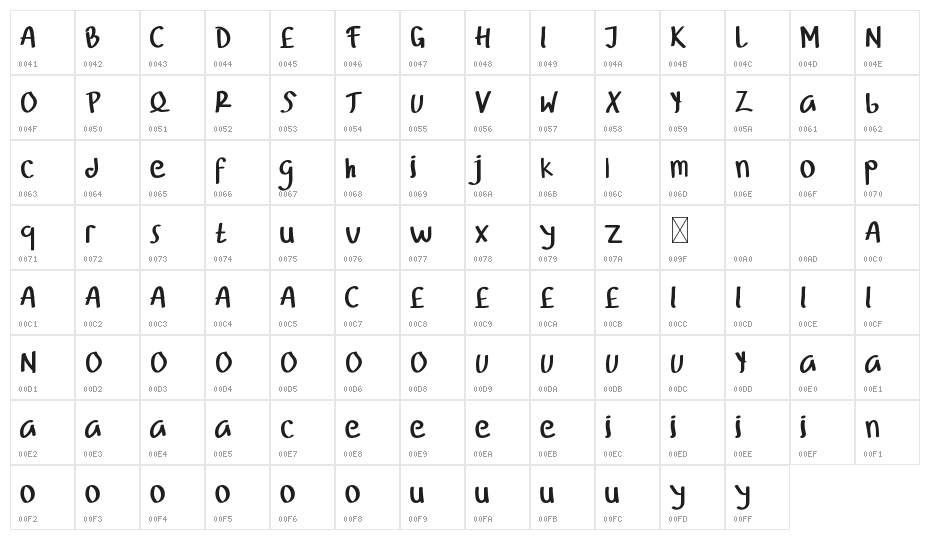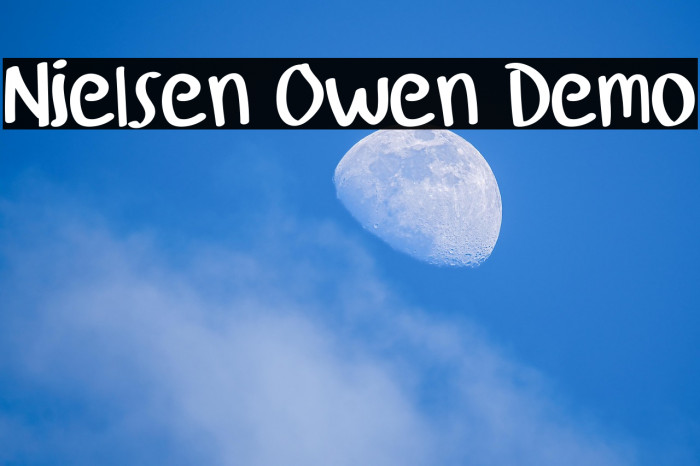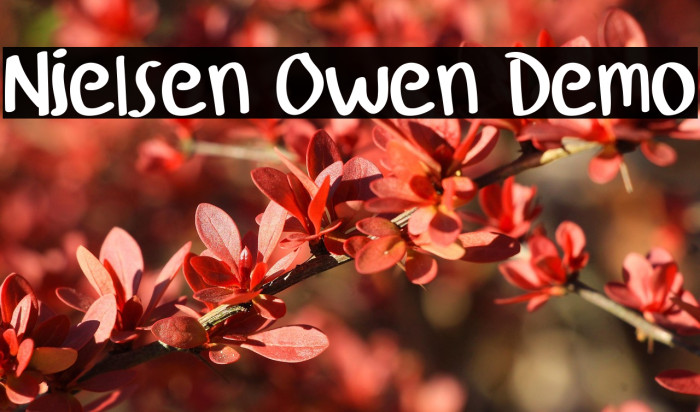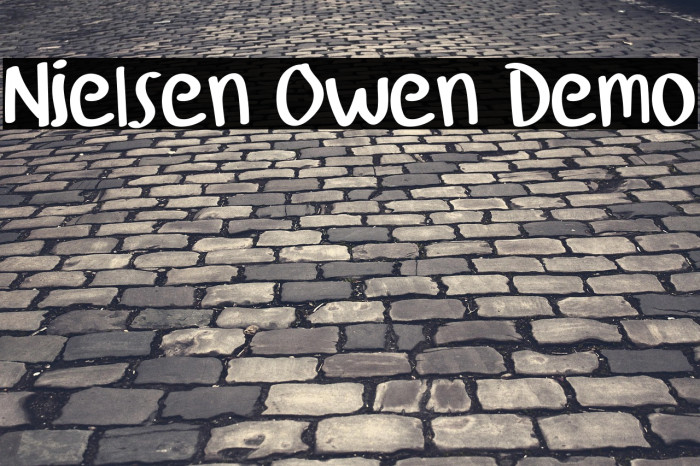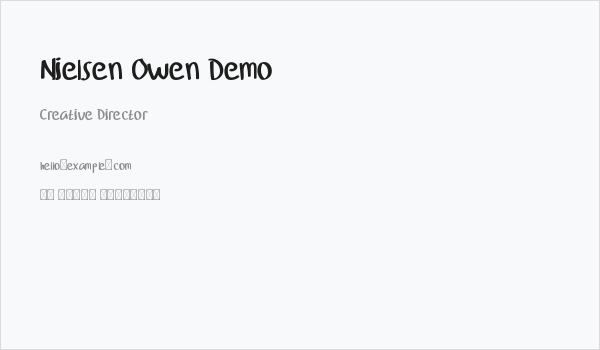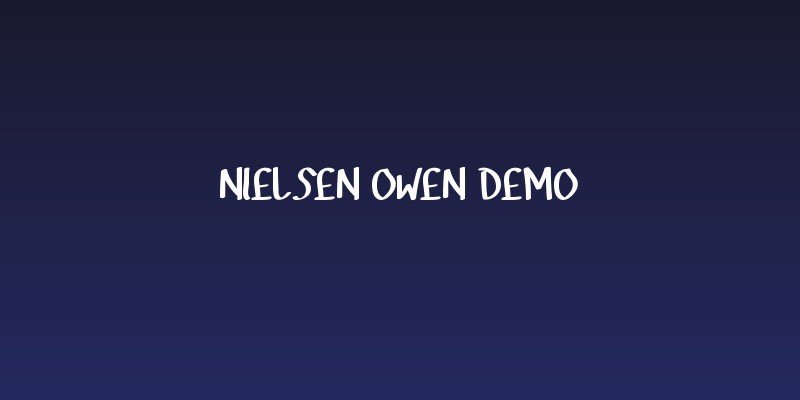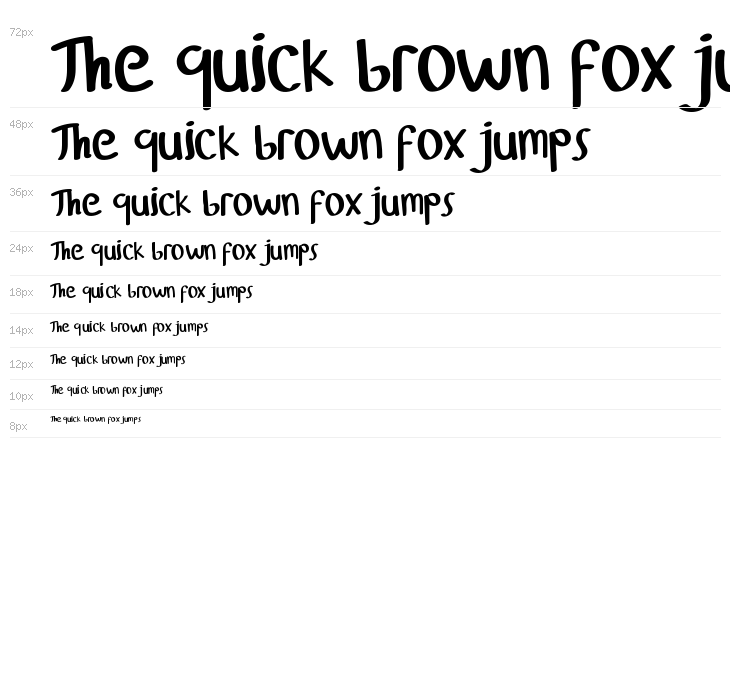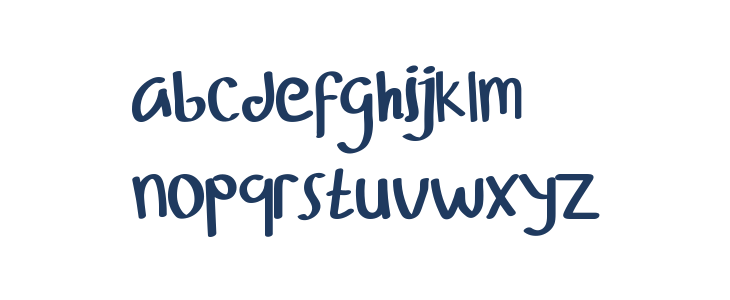
Nielsen Owen Demo Font
Nielsen Owen Demo Description
This font features a playful and casual handwritten style, characterized by its bold and slightly irregular strokes. The letters have a lively and dynamic appearance, with varying stroke widths that add a sense of movement and energy. The uppercase and lowercase letters are well-balanced, maintaining a consistent flow throughout the alphabet. The font's unique charm lies in its informal and approachable aesthetic, making it ideal for projects that require a personal touch. The rounded edges and slight slant of the characters contribute to its friendly and inviting feel.
| Use Case | Logos, Headlines, Informal Invitations |
| Proposed Projects | Ideal for greeting cards, children's books, playful branding, and social media graphics. |